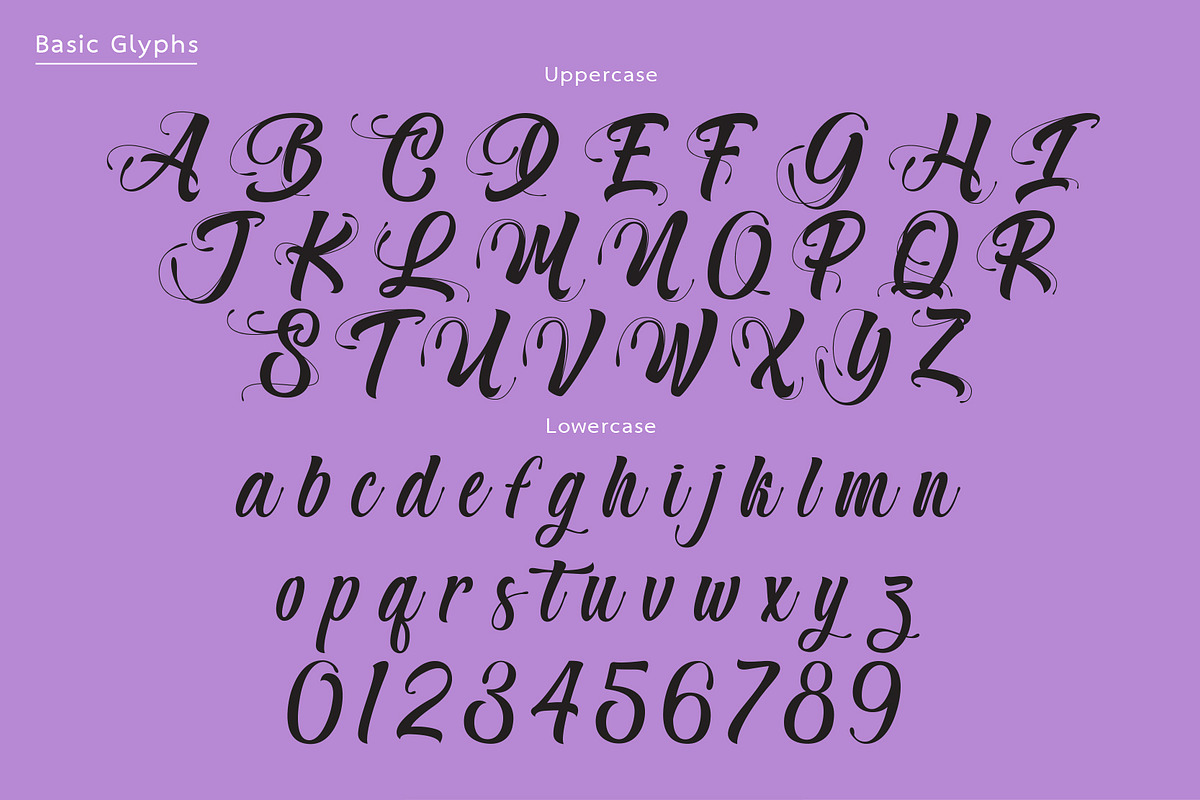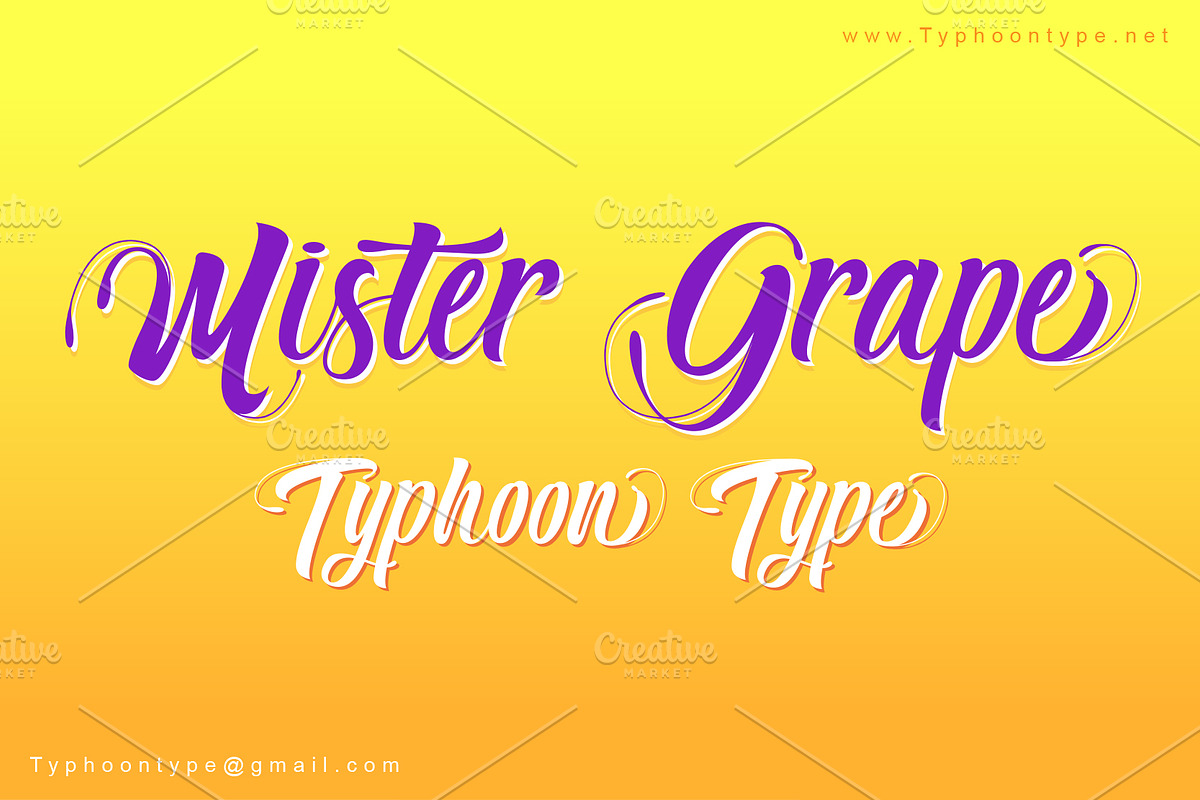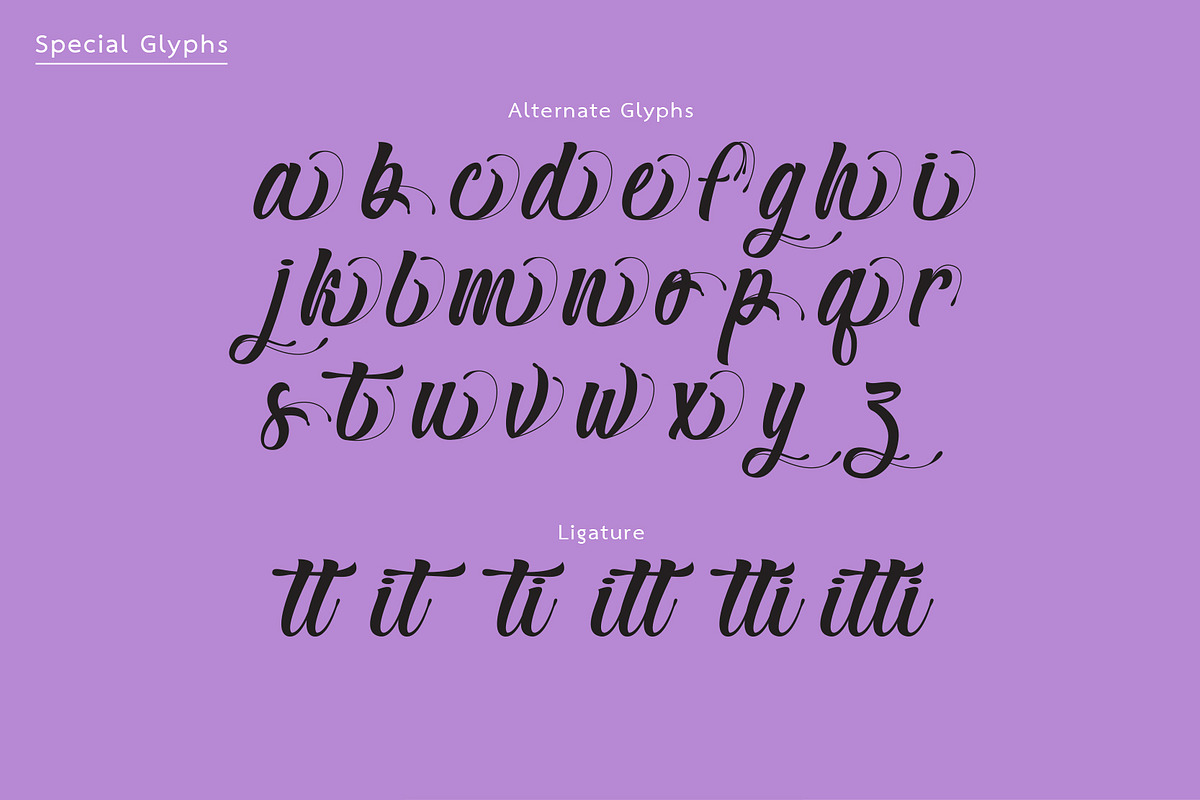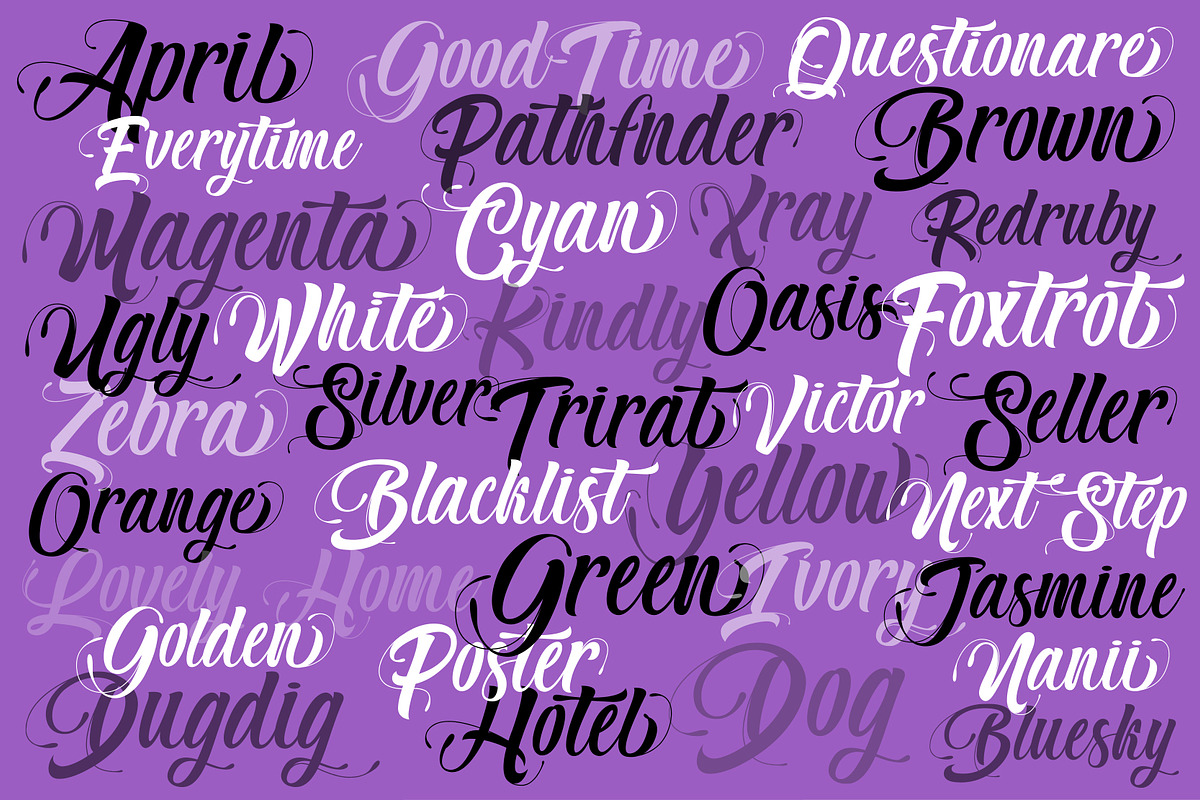
Mister Grape Font
“Mister Grape” is a font that brings the charm of retro ribbon-style handwriting to life, with each character resembling strokes made with a flat-tipped brush. The font features elegant and flowing design elements, particularly in the uppercase letters, where small, graceful tails are added to enhance the fluidity and harmony of the letters.
In addition to its distinct design, “Mister Grape” includes special characters and is PUA encoded, allowing easy access to additional glyphs. Its combination of readability and visual appeal makes it a perfect choice for various types of advertising and promotional materials, adding a touch of vintage flair while remaining modern and versatile.